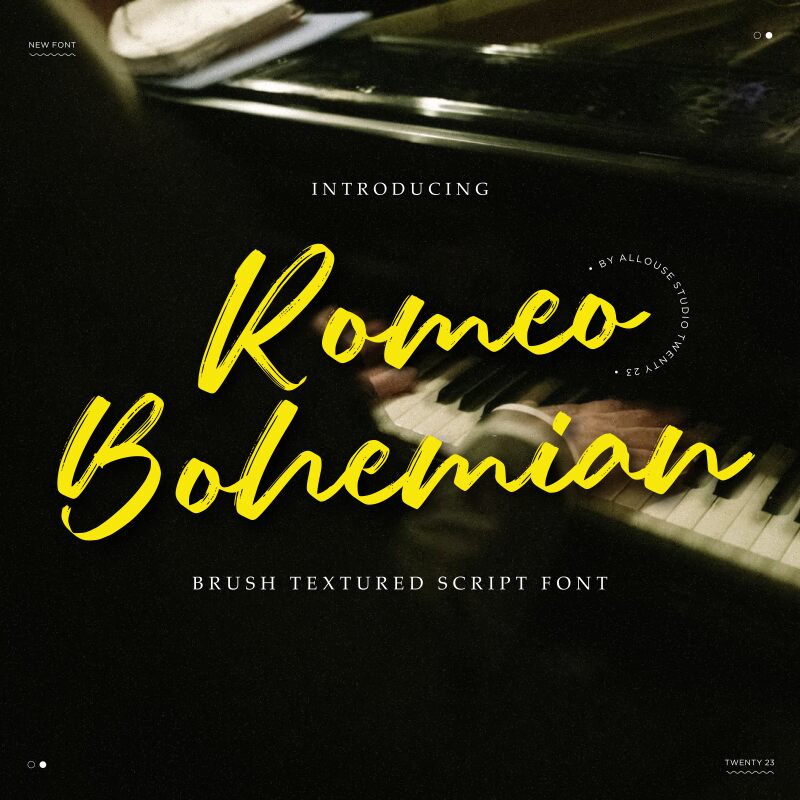
Romeo Bohemian
Romeo Bohemian font by Allouse Studio is a free brush font that boasts elegance and artistic flair. Its impressive look manifests through modern calligraphic letters with expressive strokes and terminals. The designer’s commitment to capturing a handwritten appearance brings forth the charm of chic casual elegance, making this font a unique option for stylish designs.
Whether used alone or in combination with other fonts, Romeo Bohemian is resourceful for designing wedding invitations, thank you cards, certificates, luxury branding, food package designs, product packaging typography, headings/subheadings for books & magazines. The all-purpose utility extends to songwriting covers/album covers as well as many other exceptional roles!